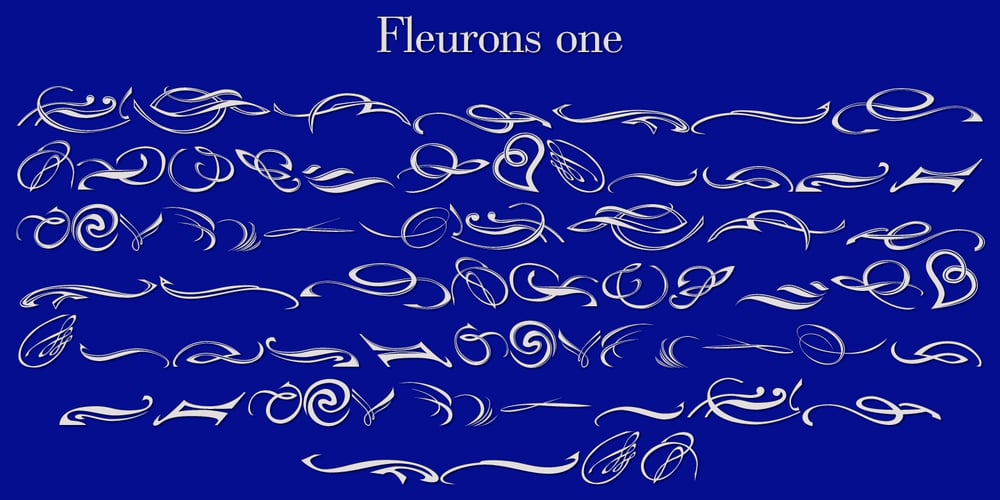
Fleurons One Font Family was designed by Gert Wiescher and published by Wiescher Design. Fleurons One contains 1 styles and family package options. Fleurons are embellishments and this is my first fleurons font. I looked at some old ones and made some new ones. They should go very well with my script Nadine!!! Yours in a beautiful mood Gert Wiescher